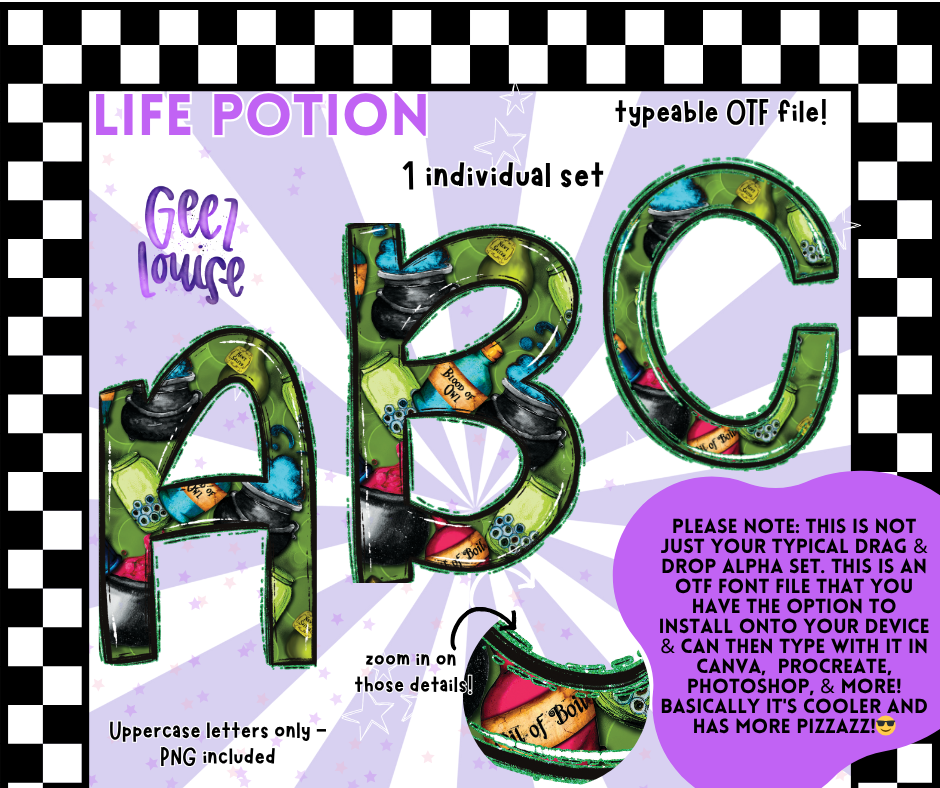
Life Potion OTF Font + PNG Alpha Set
Stir up some design magic with Life Potion — a spooky-fun font packed with potion bottles, spell ingredients, and a whole lot of hocus pocus.
🧪 Uppercase letters only
🧪 Vivid greens, potions, labels, and witchy vibes throughout each letter
Perfect for Halloween designs, apothecary themes, spooky product labels, and anyone brewing up digital magic.